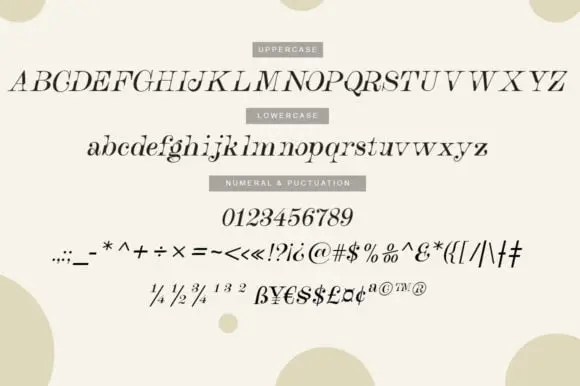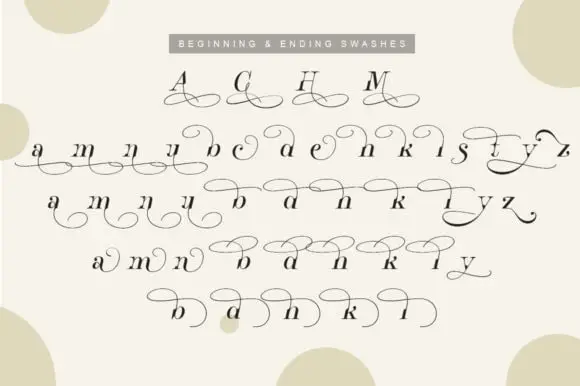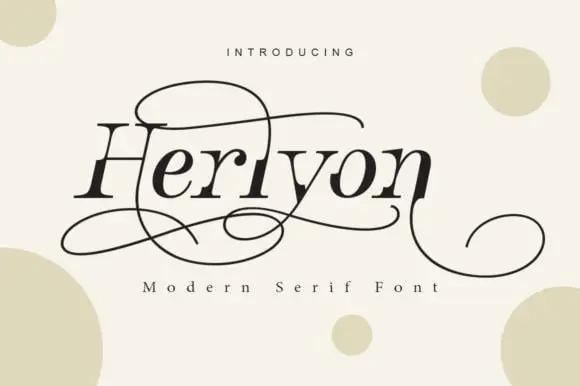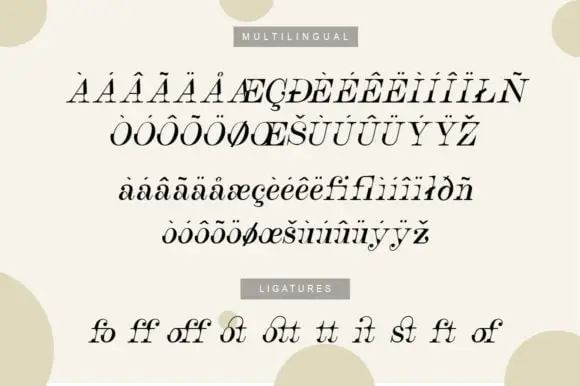
Herlyon Font
The Herlyon Font is a modern and stylish typeface that brings a unique flair to your design projects. With its elegant curves and clean lines, this font is perfect for a variety of applications, from branding and logos to web design and print materials.
• Ideal for creating eye-catching logos and branding materials.
• Great for use in both digital and print media.
• Utilize different weights to create visual hierarchy in your designs.